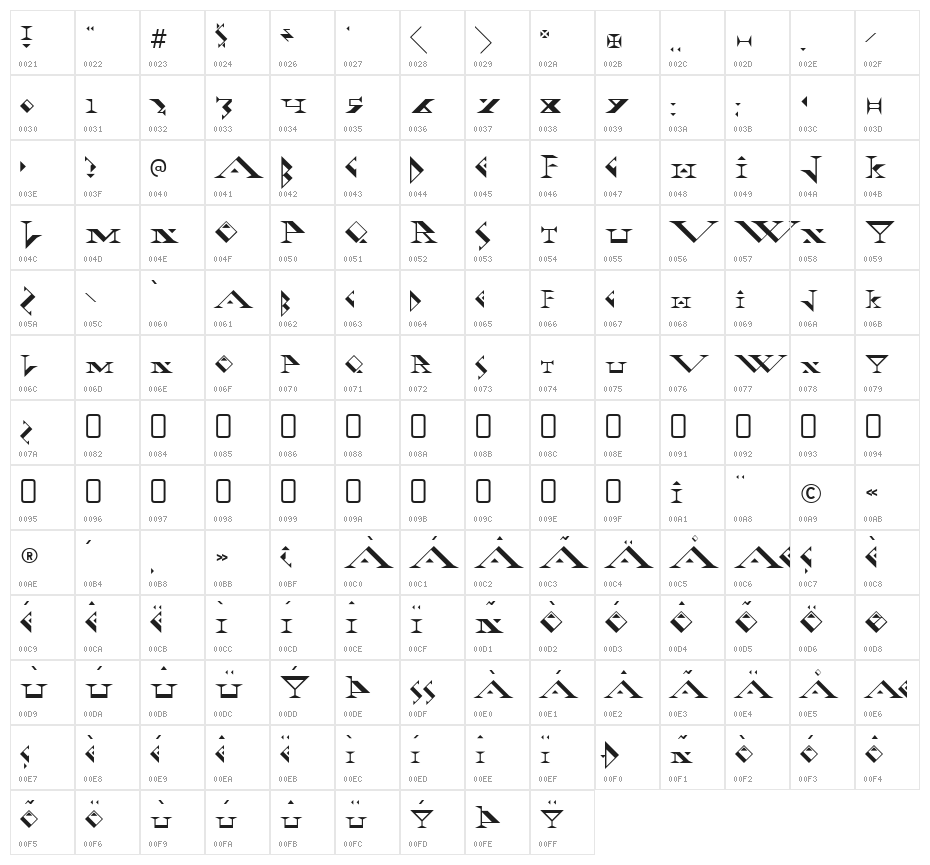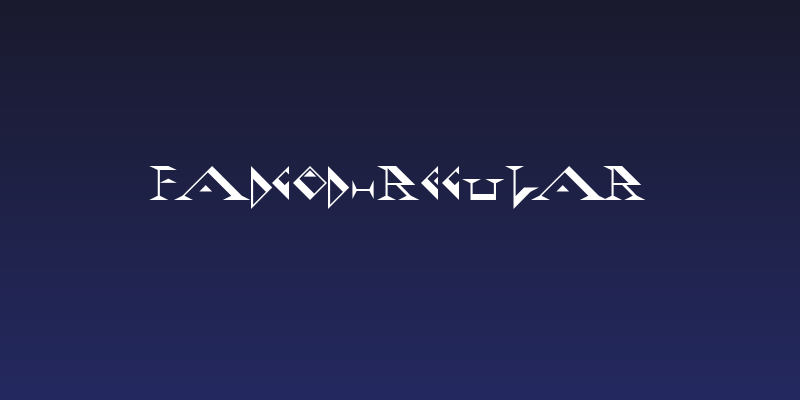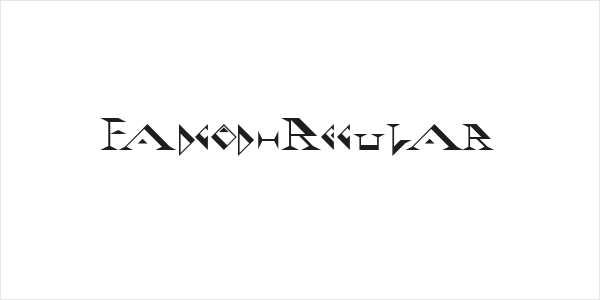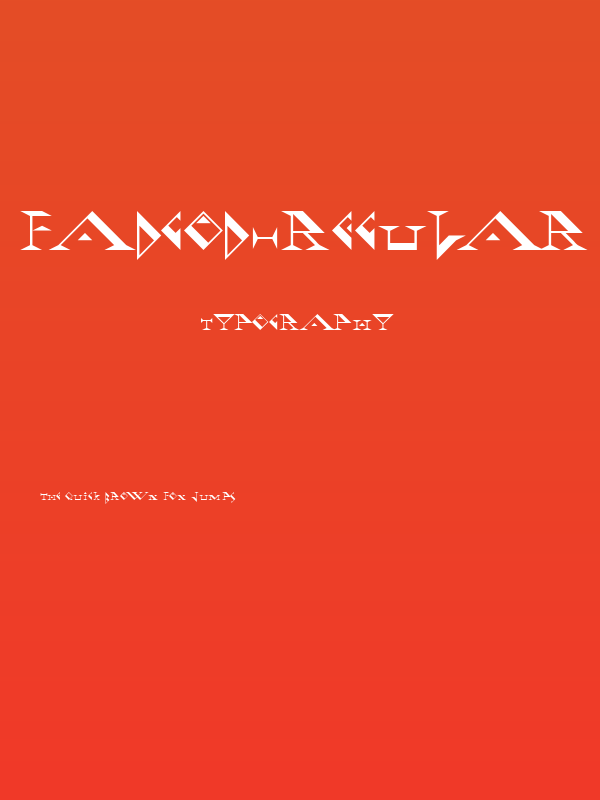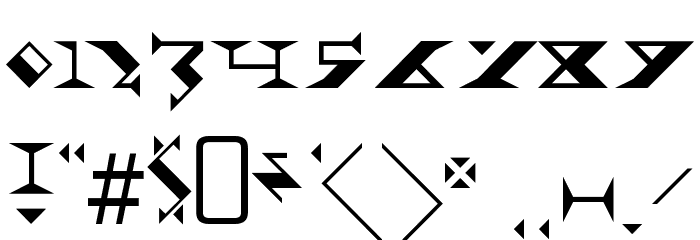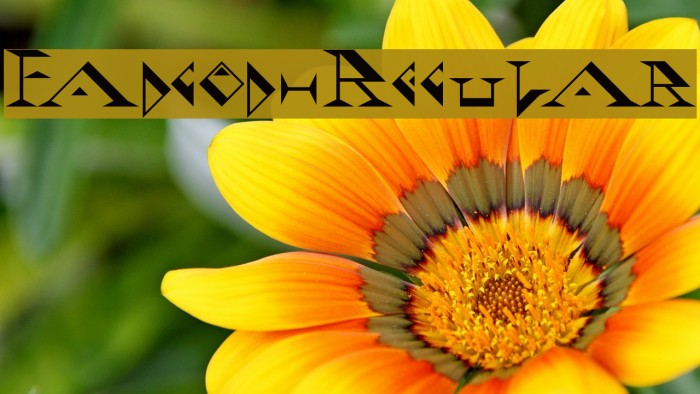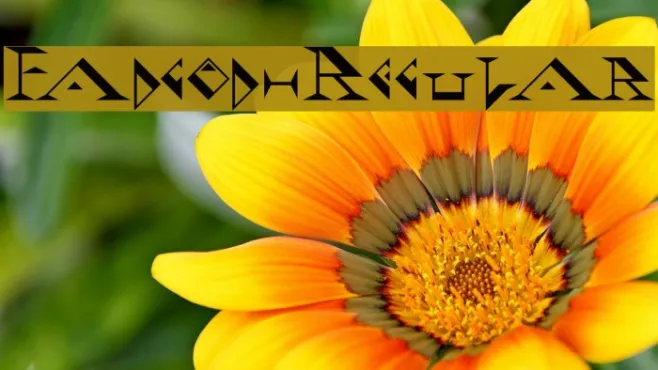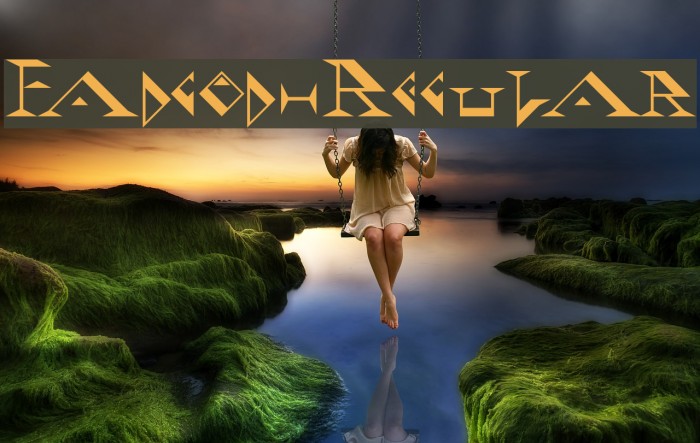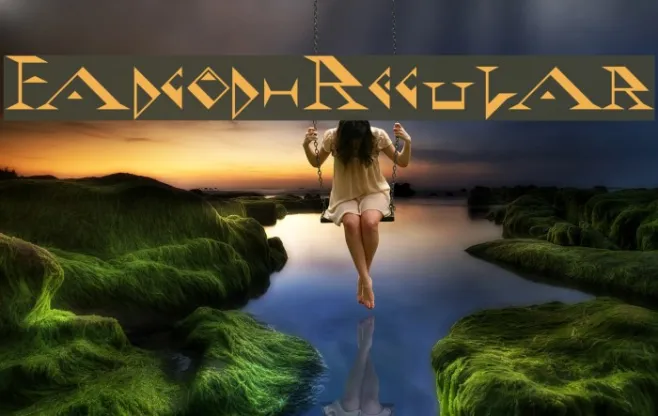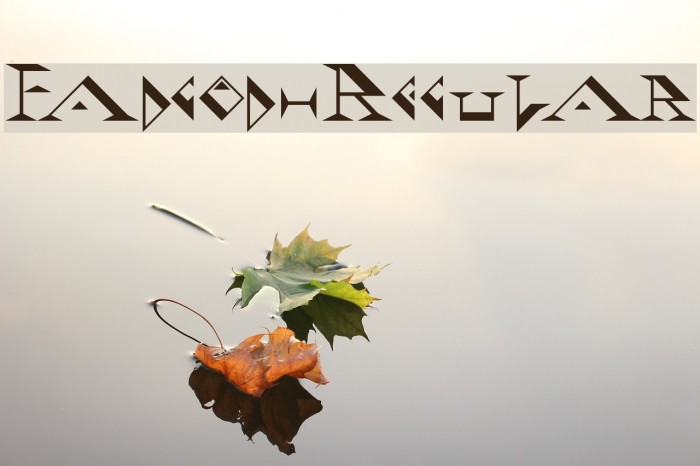
Fadgod-Regular Font
Fadgod-Regular Description
This font features a highly geometric and angular design, characterized by sharp edges and bold lines. Each character is crafted with a futuristic aesthetic, incorporating triangular and diamond-like shapes that create a sense of movement and energy. The uppercase and lowercase letters maintain a consistent style, with unique variations that add visual interest. Numbers and special characters follow the same design principles, ensuring a cohesive look across all elements. The font's distinct appearance makes it suitable for projects that require a modern and edgy feel.
| Proposed Projects | Ideal for sci-fi themed designs, video game graphics, modern branding, and edgy poster art. |